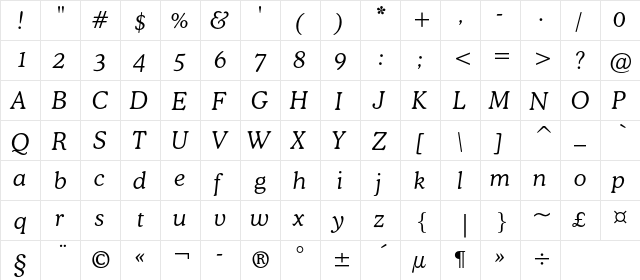
CooperLightC BT Italic
Design Context for CooperLightC BT Typeface
CooperLightC BT is a composed and adaptable typeface that performs quietly and consistently across a wide range of design contexts. The dynamic lean of this cut emphasises speed and emphasis in any layout. The delicate stroke weight brings airiness and refinement to layouts.
Pro Tip: Use CooperLightC BT for emphasis, pull quotes, and subheadings where its slanted energy can add rhythm to the layout.